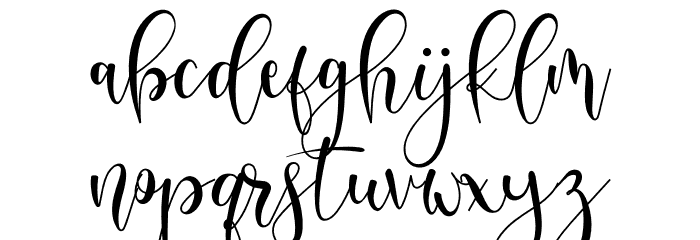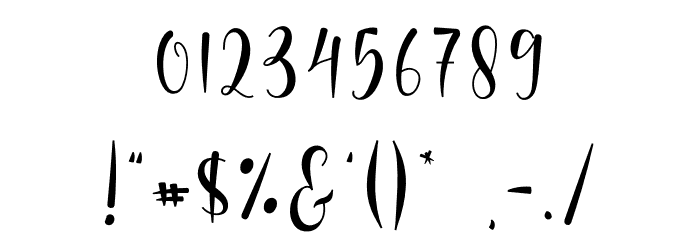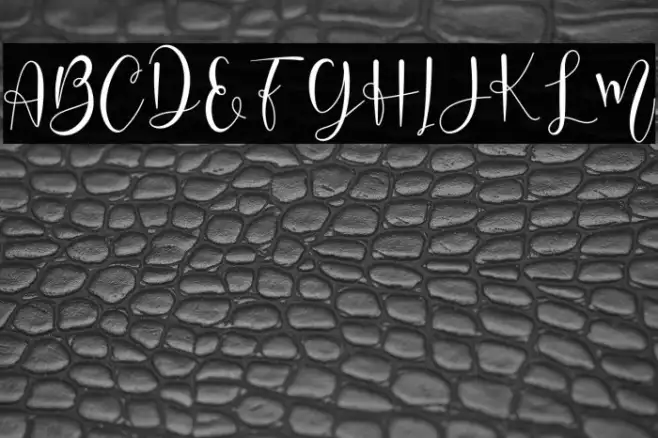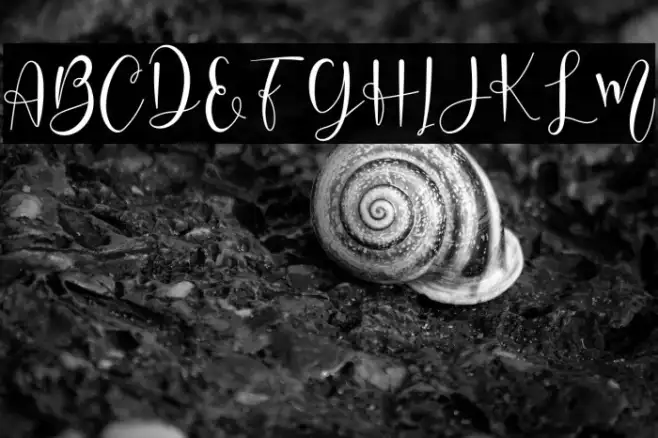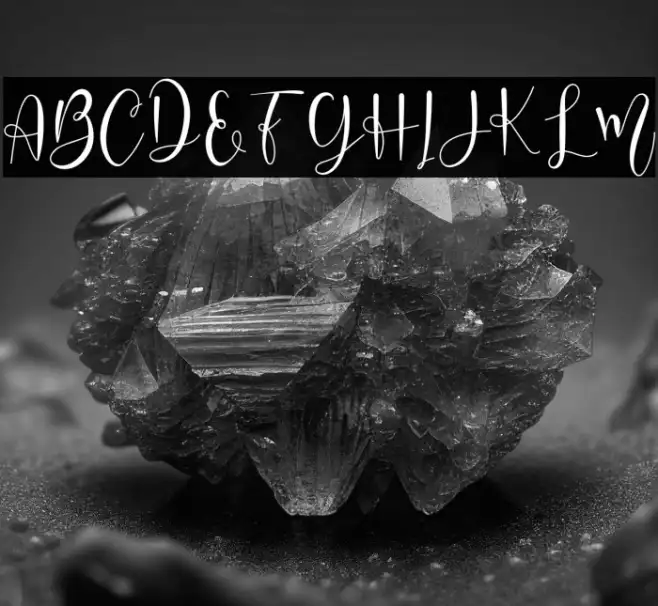
delisha Font
This font exudes a playful and elegant handwritten style, characterized by its flowing, cursive letters that maintain a consistent rhythm throughout. The uppercase letters are tall and slender, with graceful loops and swirls that add a touch of sophistication. The lowercase letters are equally charming, with a slightly more compact form that complements the uppercase. Numbers and special characters follow the same fluid style, ensuring a cohesive look across all text. The font's overall appearance is both whimsical and refined, making it suitable for a variety of creative projects.
A playful and elegant handwritten font with flowing, cursive letters.
- Font: delisha
- Proposed Projects: Ideal for wedding invitations, greeting cards, branding, and social media graphics.
- Category: Handwritten
- Use Case: Logos, Headlines, Invitations